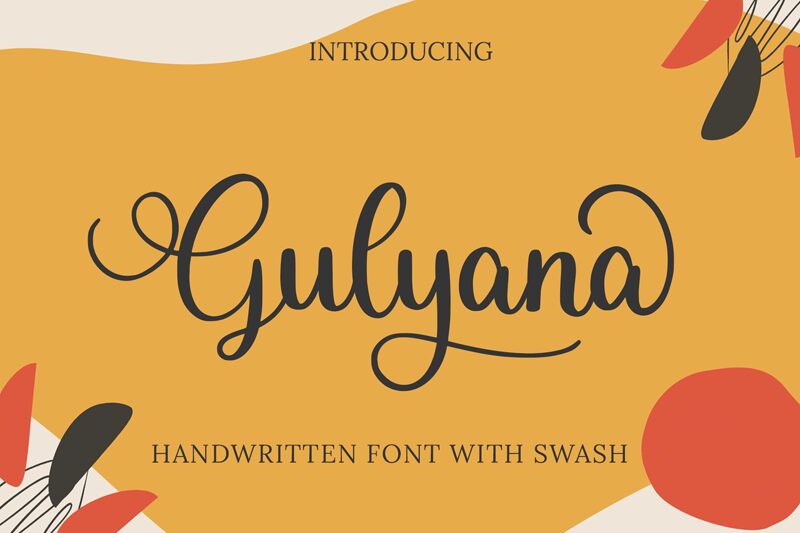
Gulyana, created by Bearytype, is a mesmerizing calligraphy font that effortlessly combines elegance and playfulness. With its semi-light weight, this font is perfect for projects that require sophistication while maintaining a touch of whimsy. Whether it's wedding invitations, greeting cards, or luxury branding, Gulyana adds a refined yet joyful flair to any design. Its graceful strokes and exquisite details make it an ideal choice for creating stunning logos, packaging designs, and social media graphics. Let Gulyana elevate your projects with its unique blend of charm and grace.